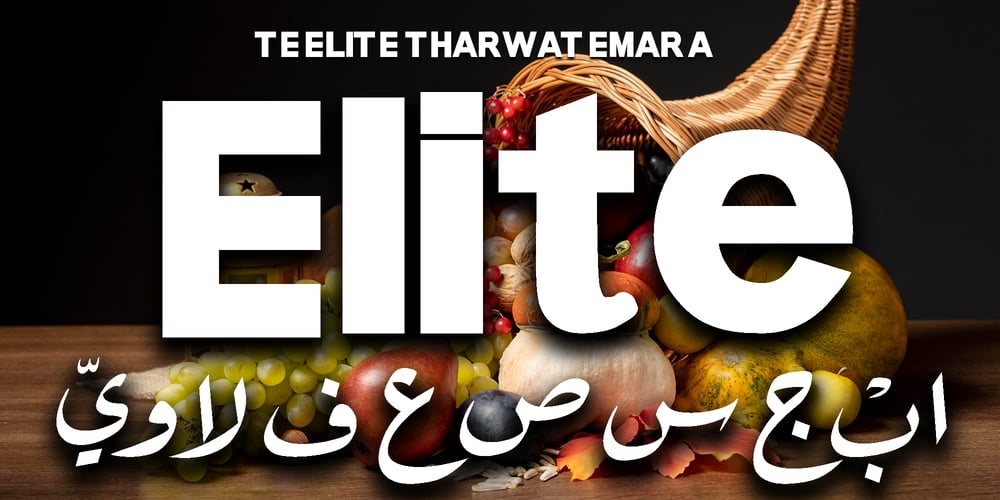
TE Elite Tharwat Emara Font Family was designed by Tharwat Mohamed Emara and published by Tharwat Emara. TE Elite Tharwat Emara contains 1 styles and family package options. The Tharwat Emara Elite font, designed by Tharwat Mohammed Emara, is a modern interpretation of the traditional Arabic elite script. This font is widely appreciated for its elegance and readability, making it a popular choice for various design and typographic projects.Key Features:1. Traditional Roots: The Elite ( Reqaa) script is one of the original Arabic scripts, known for its simplicity and ease of writing. Tharwat Emara’s version maintains these traditional elements while introducing modern touches1.2. Versatility: This font is highly versatile, suitable for both digital and print media. It can be used in a variety of contexts, from formal documents to creative designs2.3. Compact Design: One of the standout features of the Elite script is its ability to be written in a narrow space. This makes it ideal for use in areas where space is limited, without compromising on readability3.4. Character Set: The font includes a comprehensive set of characters, covering basic Latin, Latin-1 Supplement, Arabic, General Punctuation, and more. This extensive character set ensures that the font can be used in a wide range of applications4.5. Aesthetic Appeal: The Tharwat Emara Elite font is known for its aesthetic appeal, combining traditional calligraphic elements with a modern twist. This makes it a favorite among designers looking to add a touch of elegance to their projects1.Usage:• Graphic Design: Ideal for logos, posters, and other graphic design projects where a touch of Arabic calligraphy is desired.• Web Design: Suitable for use in web design, providing a unique and elegant look to websites.• Print Media: Perfect for use in books, magazines, and other print media, offering a traditional yet modern look.Popularity:The Tharwat Emara Elite ( Reqaa) font has gained popularity due to its unique blend of traditional and modern elements. It is widely used in the Arab world and beyond, appreciated for its readability and aesthetic appeal2.Conclusion:The Tharwat Emara Elite ( Reqaa) font is a beautiful and versatile typeface that brings the elegance of traditional Arabic calligraphy into the modern age. Its compact design, extensive character set, and aesthetic appeal make it a valuable tool for designers and typographers alike.Would you like to know more about its applications or perhaps see some examples of its useSure! Here are some examples of how the Tharwat Emara Elite ( Reqaa) font is used:Book Titles and Covers: This font is often used for the titles of books and their covers, giving them a traditional yet modern look1.1. Magazine Headlines: The font’s readability and aesthetic appeal make it a popular choice for magazine headlines1.2. Advertising and Banners: Its elegant design is perfect for advertisements and banners, helping to attract attention and convey messages effectively1.3. Holiday Cards: The font’s unique style adds a special touch to holiday cards, making them more personal and visually appealing1.4. Web Design: Many websites use this font to give their content a distinctive and elegant appearance1.You can see more examples and get a better idea of its versatility on the Fonts In Use website2.